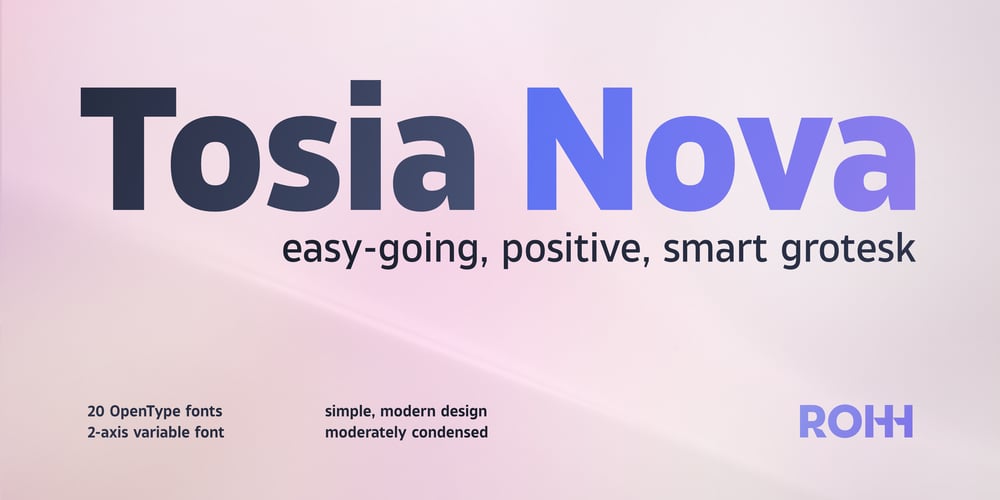
Tosia Nova Font Family was designed by Roch Modrzejewski and published by ROHH. Tosia Nova contains 21 styles and family package options. Tosia Nova is a simple, effortless, and unpretentious sans-serif typeface. With its modern flair and moderately condensed proportions, it delivers versatility and legibility, fitting effortlessly into a wide range of design environments.Its neutral, balanced lines provide just the right touch of personality—enough to stand out without dominating your design.Built as a true multitasker, Tosia thrives in every setting—from calm, formal print layouts and sleek websites to lighthearted magazines, branding, and product packaging. Bring it into your next project, and see how easily everything aligns.Key Features• 20 versatile styles (10 weights + italics)• 2-axis variable font (weight + slant)• over 1050 glyphs